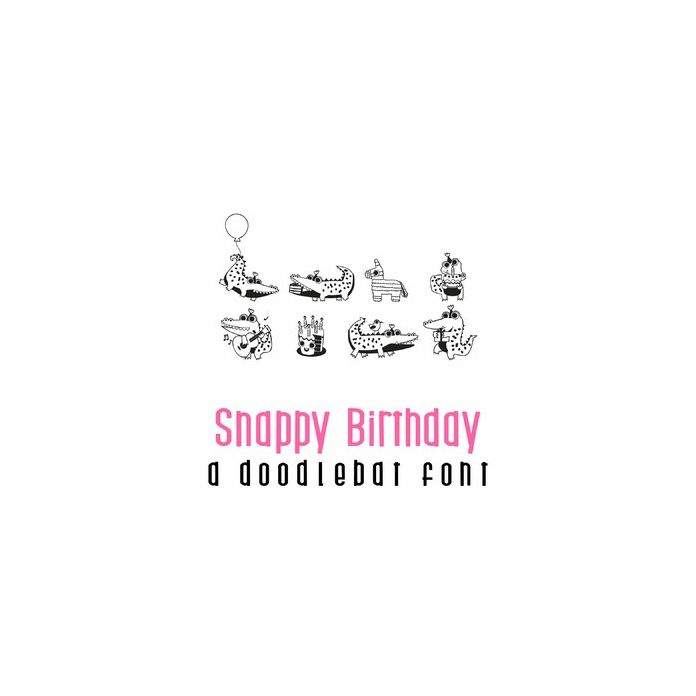
This adorable doodlebat features 26 images of cute alligators ready to party! Perfect for birthdays, gifts, planner stickers, parties, decor, scrapbook pages and more!